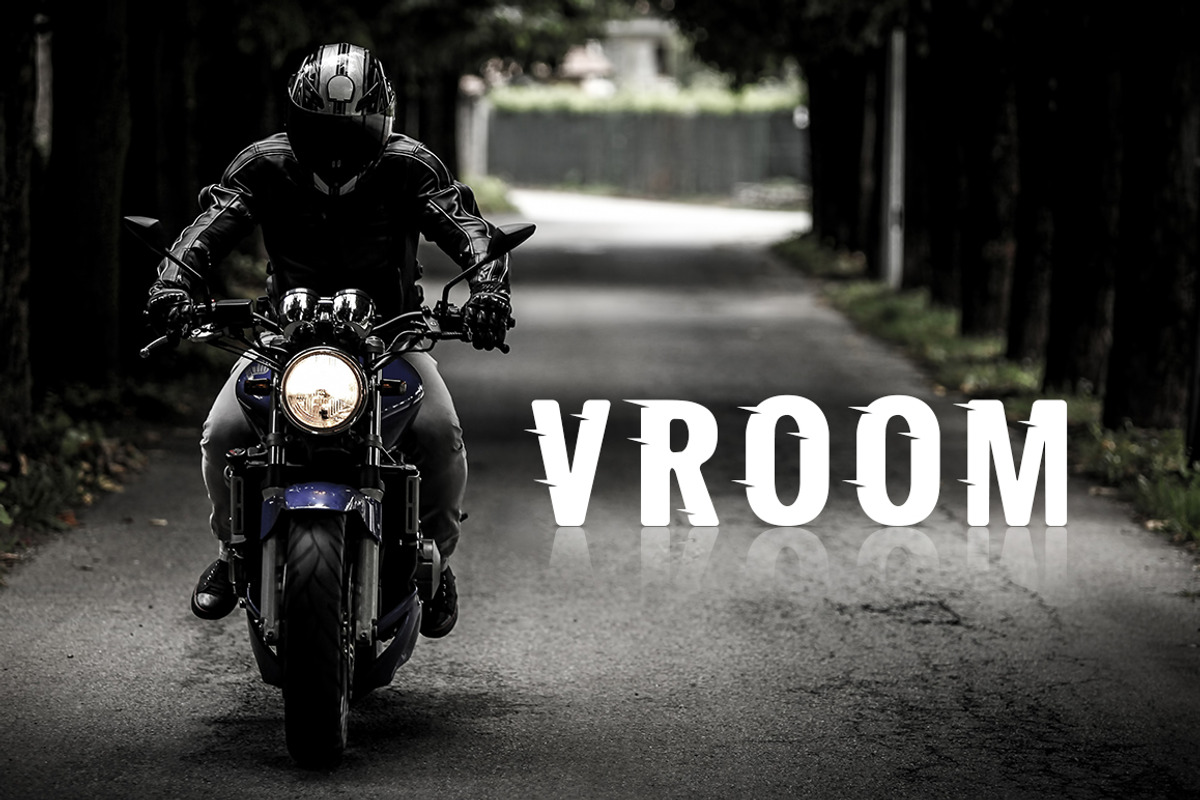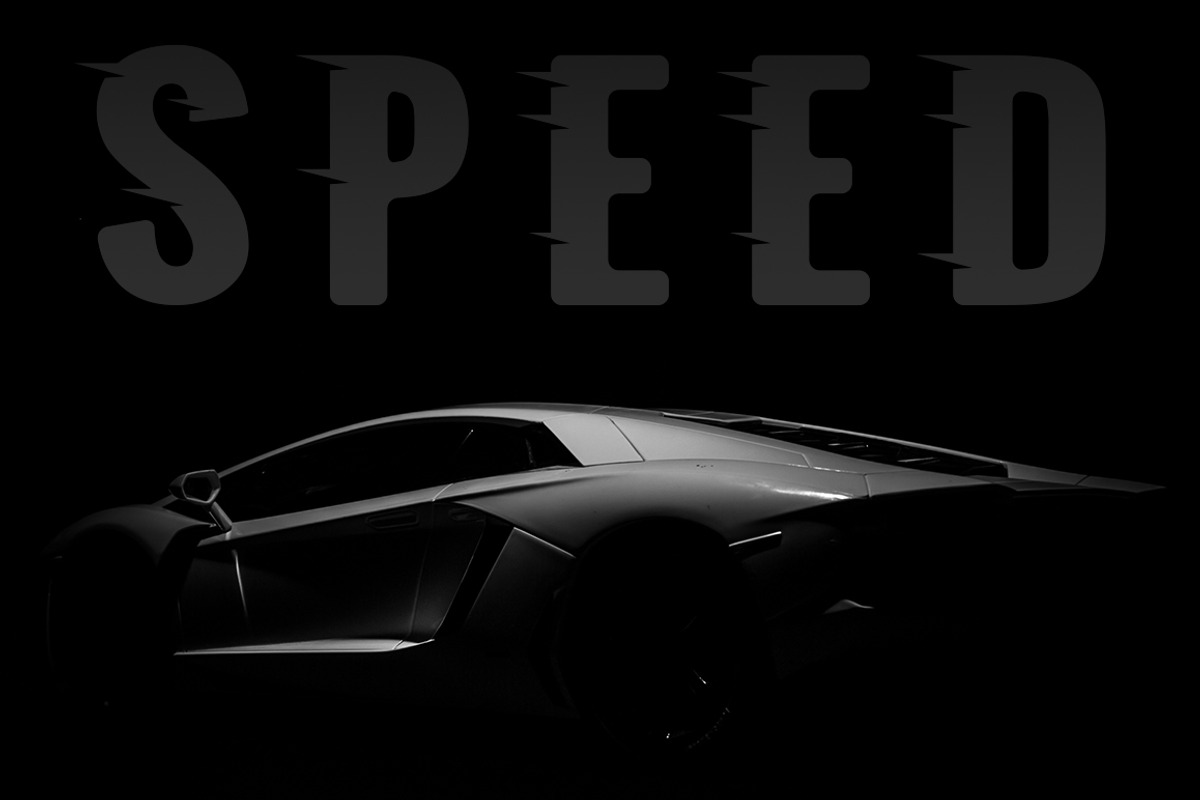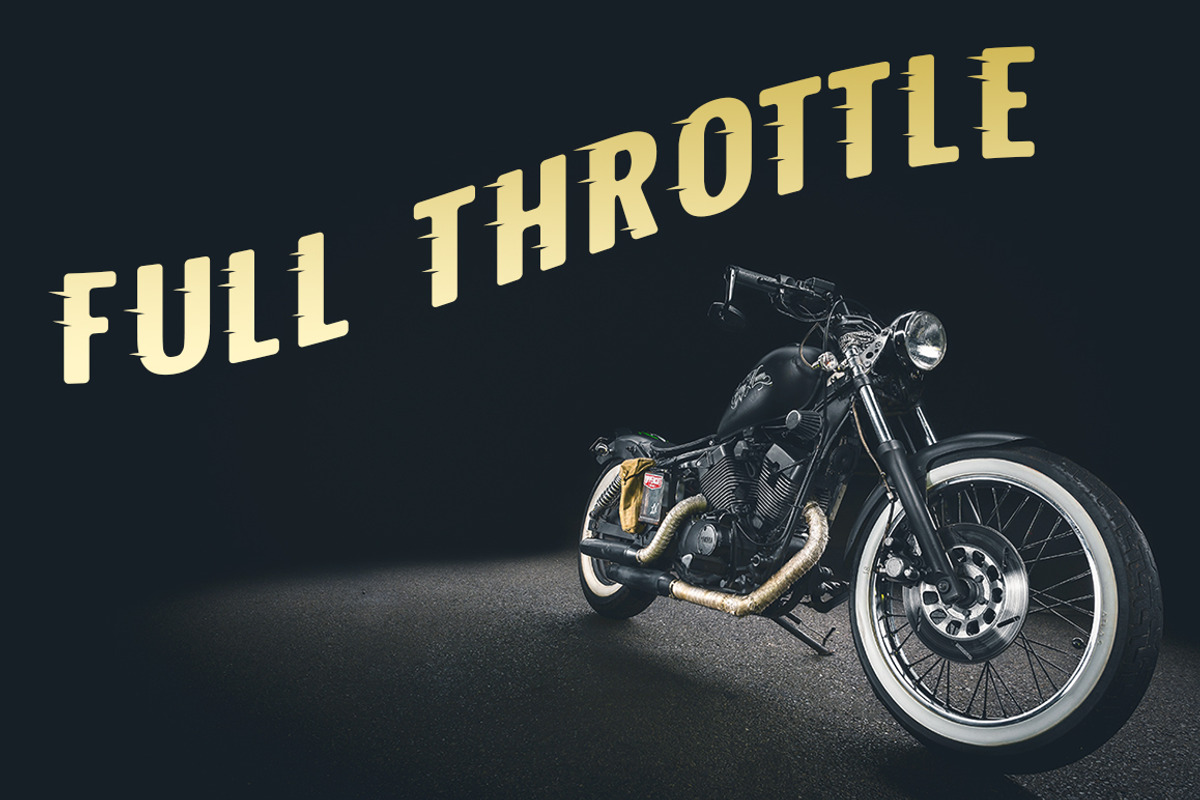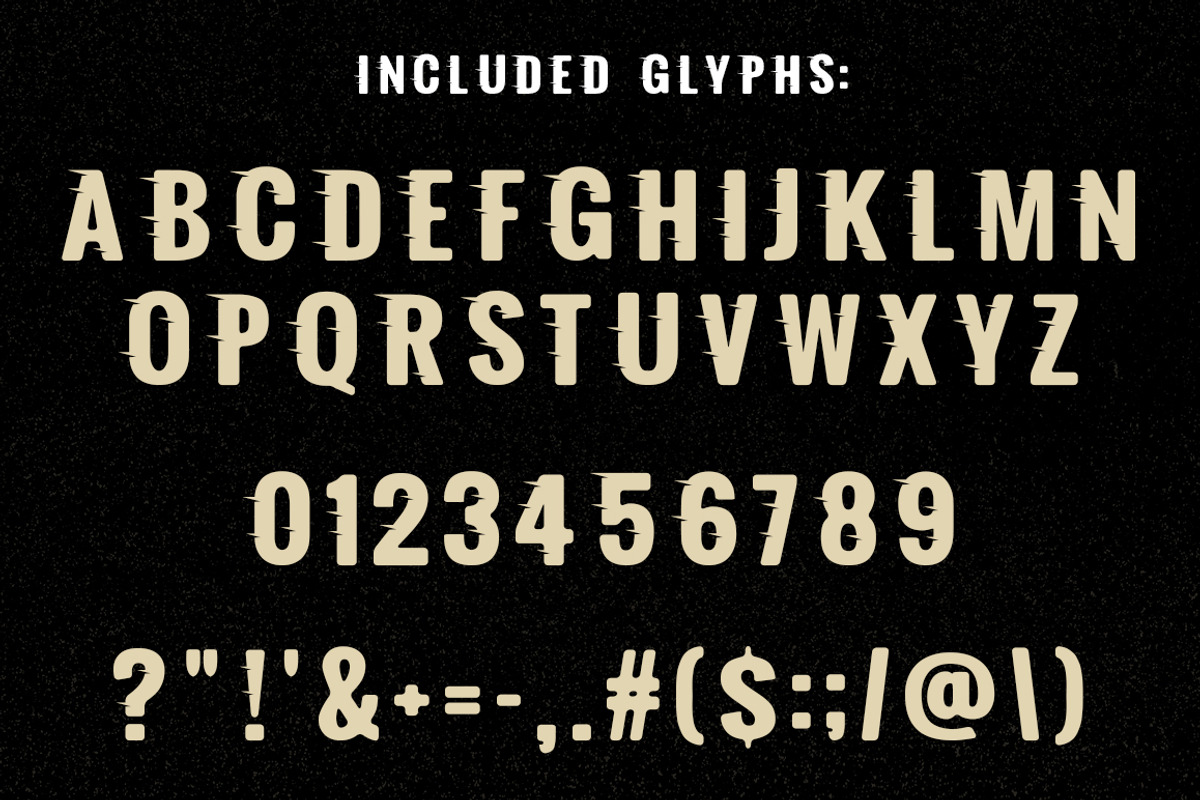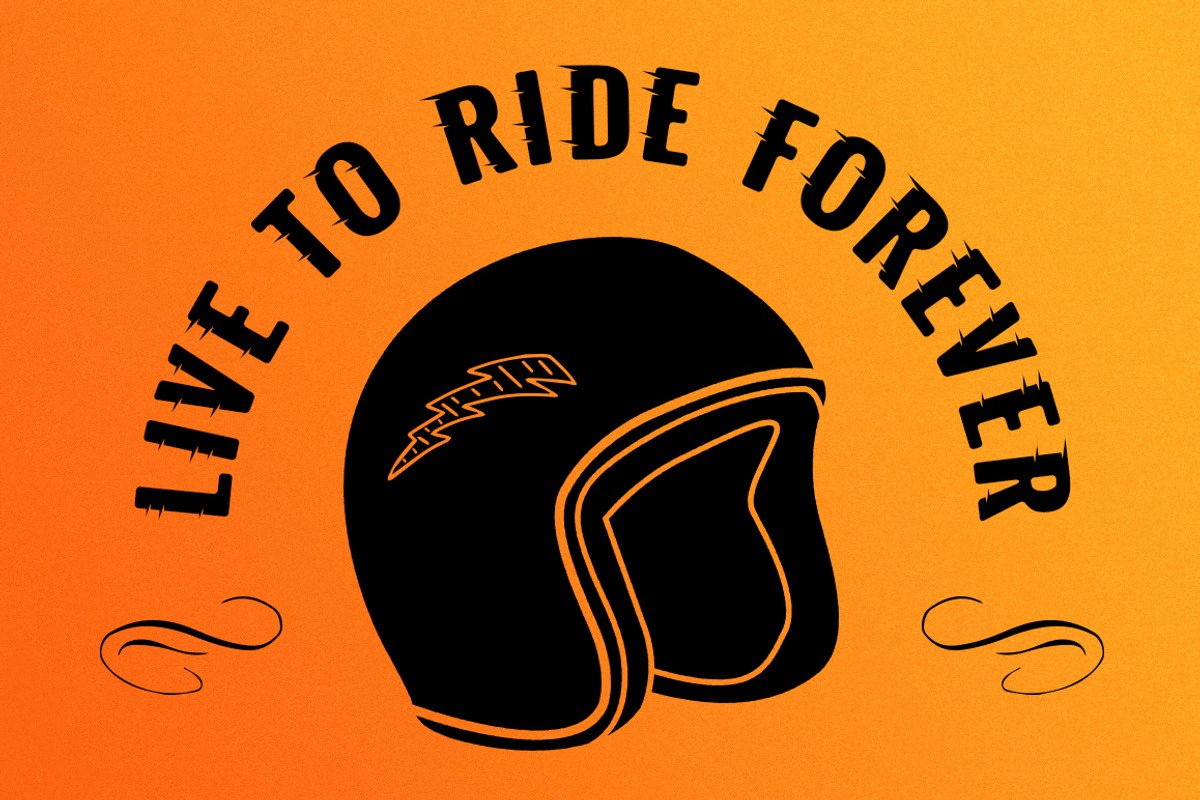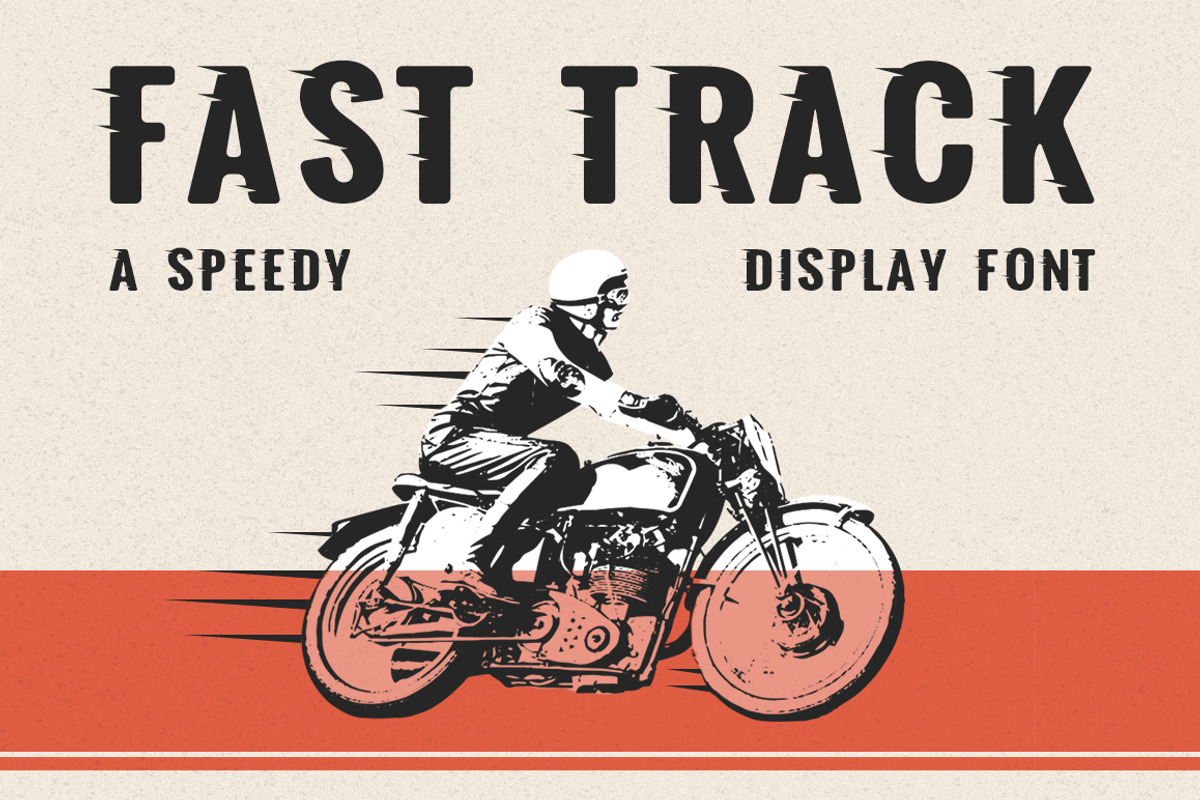
Fast Track - A Speedy Display Font
Fast Track is an all-caps font with a distinct appearance of speed. It works well in vintage racing posters, automotive t-shirts, motorcycle events, garage signs, kid's cards... the possibilities are endless!